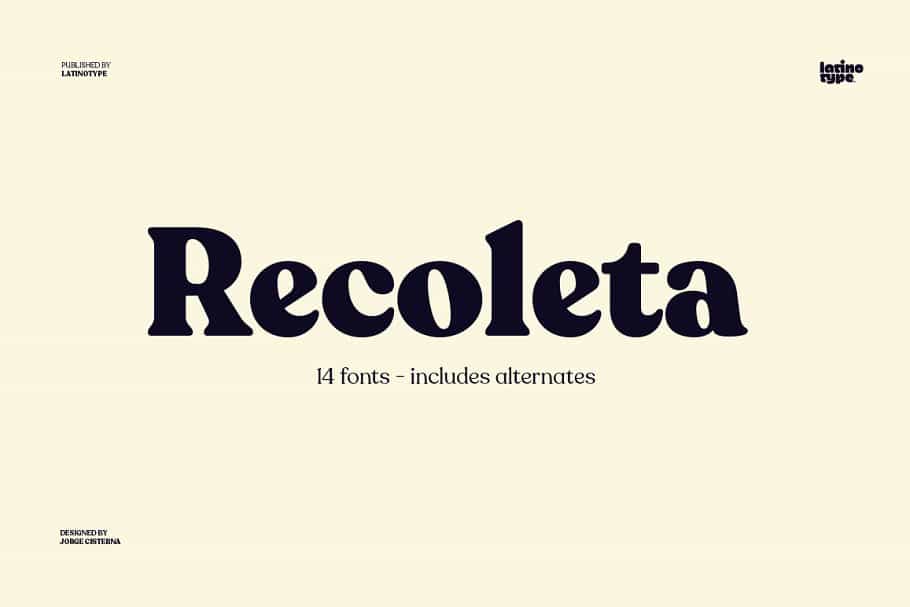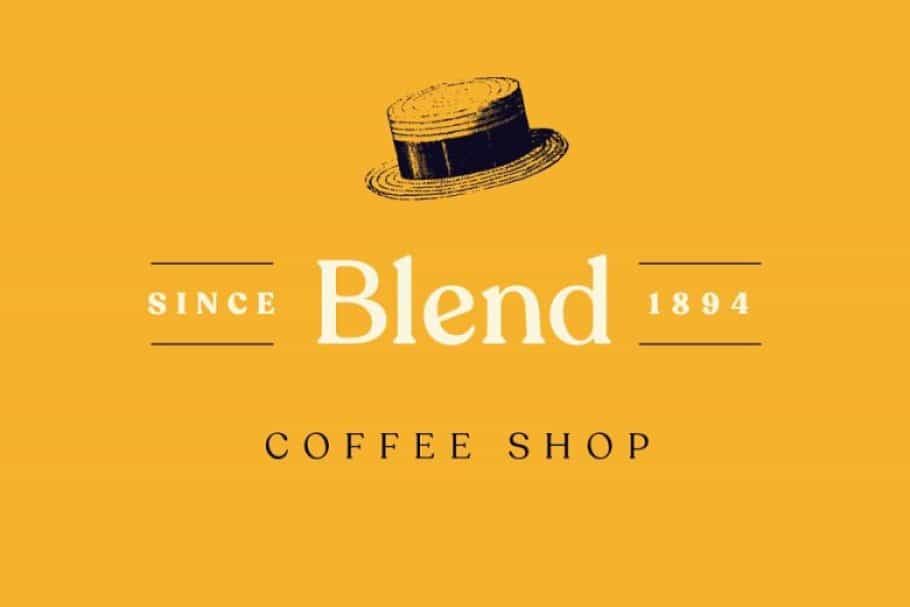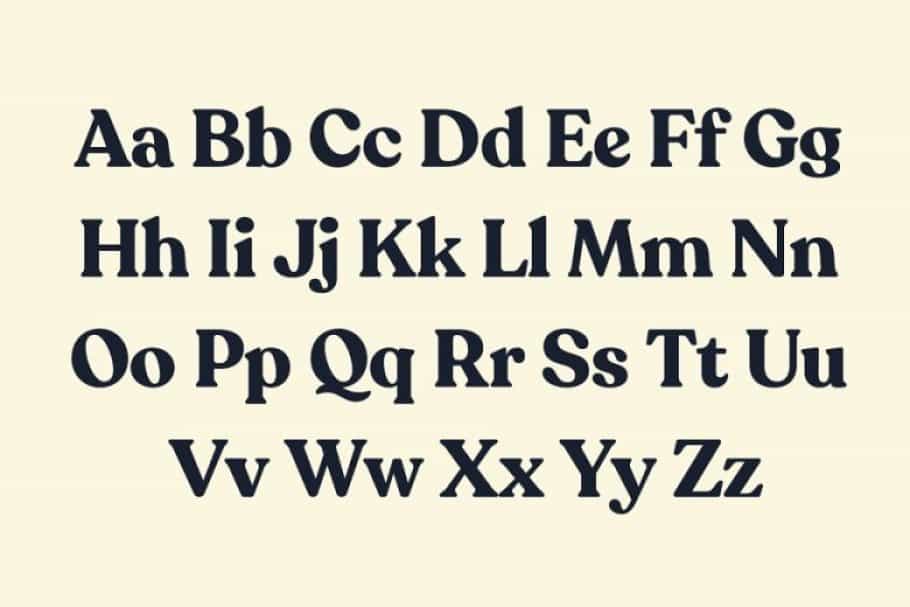
As with the Grandma’s recipe, Recoleta combines elements of the most popular 1970s typefaces like Cooper or Windsor into a new unified design that is at the same time recognizable and unique. The weight options are rich to ensure that a designer gets the right color for his/her typeface in the design.